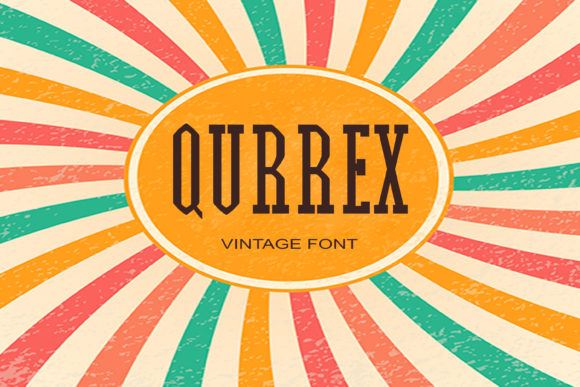
Embark on a typographic journey with Qurrex Font, a serif typeface that captivates with its enchanting playfulness. Designed by the talented artists at DmDesignsStoreArt, Qurrex radiates a vintage charm that adds a touch of nostalgia to any design endeavor.
Qurrex Font: A Symphony of Serif Elegance
Qurrex Font is not just a font; it's an experience. Its carefully crafted characters exude a timeless beauty, reminiscent of classic literature and vintage signage. The intricate details and delicate curves of each letter evoke a sense of nostalgia, inviting you to explore a world of forgotten memories.
Unlock Your Creative Potential with Qurrex Font
Whether you're a seasoned designer, a creative entrepreneur, or simply someone with a passion for aesthetics, Qurrex Font is your perfect companion. Its versatility knows no bounds, adapting seamlessly to a wide range of design projects. From elegant invitations and vintage-inspired logos to eye-catching social media graphics and captivating posters, Qurrex Font transforms your words into works of art.
Immerse Yourself in the Qurrex Font Experience
With Qurrex Font, you'll discover a world of endless possibilities. Its captivating charm adds a touch of magic to any project, making your designs stand out from the crowd. As you explore the depths of Qurrex Font's character set, you'll find yourself immersed in a creative journey that knows no limits.
Qurrex Font: A Timeless Treasure for Design Enthusiasts